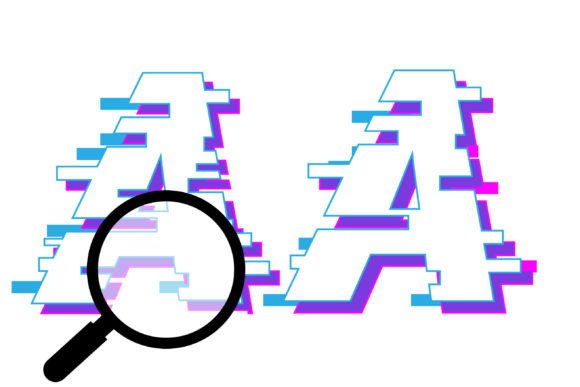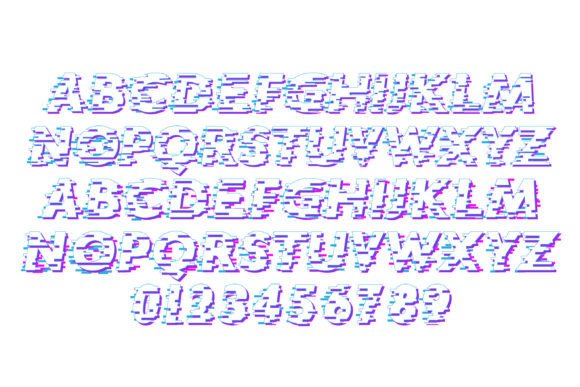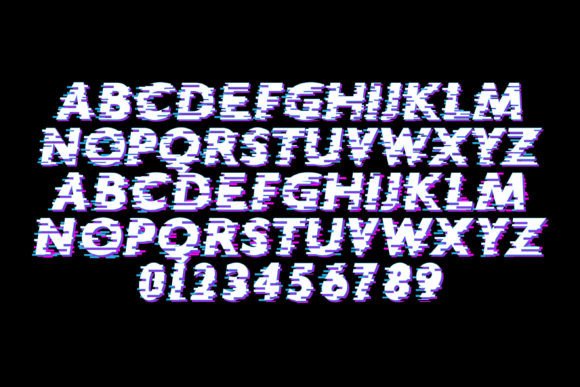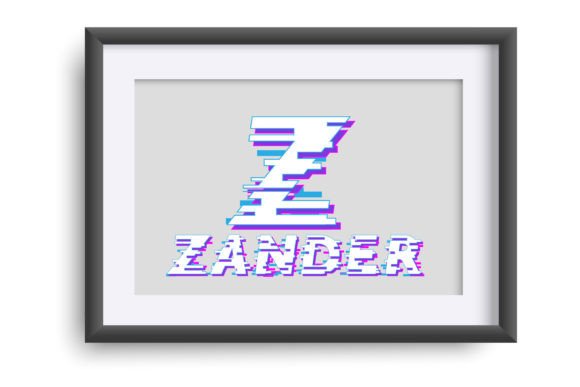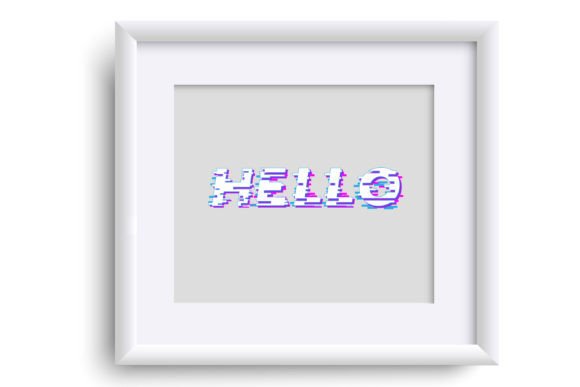
Introduction to Game Glitch Font
Remember the excitement of discovering a hidden level in your favorite childhood video game? The thrill of beating a difficult boss or finding a secret code? For many of us, video games evoke a sense of nostalgia and creativity. Now, you can tap into that same excitement with the Game Glitch Font, a full-color font that brings the fun and playfulness of video games to your designs.
This high-quality font is a must-have for designers looking to add a touch of personality to their creative projects. With its transparent background and wide range of colors, the Game Glitch Font is perfect for titles, displays, and posters. Whether you’re working on a commercial project or just want to add some fun to your personal design, this font is sure to deliver. And the best part? It’s available for free download, making it a valuable resource for any designer looking to take their work to the next level.
Key Features of Game Glitch Font
- Unique design inspired by classic video game glitches, perfect for creative projects and retro gaming enthusiasts.
- High-quality font with transparent background, allowing for easy customization and seamless integration into any design resource.
- Perfect for adding a touch of nostalgia and retro charm to any design project, from posters to video game titles.
- Can be used in various creative contexts, including graphic design, typography, and digital art.
- Unique characteristics include pixelated textures and distorted shapes, mimicking the visual effects of classic video game glitches.
Honest Review: Game Glitch Font
I recently stumbled upon the Game Glitch Font and I must say, it’s a great addition to any designer’s toolbox. As a design enthusiast, I appreciate high-quality resources that can elevate a creative project to the next level.
- ✨ The font’s distressed texture and pixelated effect are perfect for retro-style games or futuristic interfaces.
- ✨ The transparent background option allows for seamless integration into any design.
While the Game Glitch Font is a solid choice, there are some limitations to consider:
- ⚠️ Limited font styles and weights may restrict its versatility in certain projects.
- ⚠️ Some users may find the font’s pixelated effect too bold or overwhelming.
Overall, I’m impressed with the Game Glitch Font’s potential to add a unique touch to designs. Its high quality and transparent background make it a great resource for designers looking to add some texture and depth to their creative projects. With a bit of caution and consideration of its limitations, I’d highly recommend the Game Glitch Font as a valuable design resource.
How to Use Game Glitch Font
The Game Glitch Font is a unique, high-quality design resource that can add a creative twist to your projects. This font features a transparent background, making it perfect for use in various design applications.
Tips for Getting the Most Out of Game Glitch Font
To get the most out of the Game Glitch Font, experiment with different font sizes, colors, and combinations. You can also use it in conjunction with other design elements to create a unique visual effect.
Common Use Cases for Game Glitch Font
The Game Glitch Font is perfect for use in creative projects, such as video game-themed designs, retro-style graphics, and futuristic illustrations. It’s also great for adding a touch of whimsy to your branding materials or marketing campaigns.
No, Game Glitch Font is a solid font with a bold, pixelated design. It does not have a transparent background. However, you can easily add a transparent background to your design using image editing software like Adobe Photoshop.